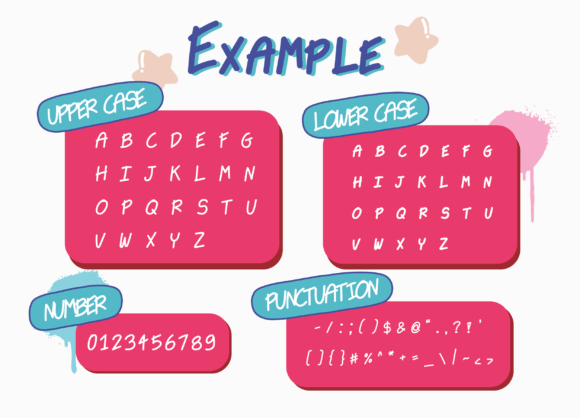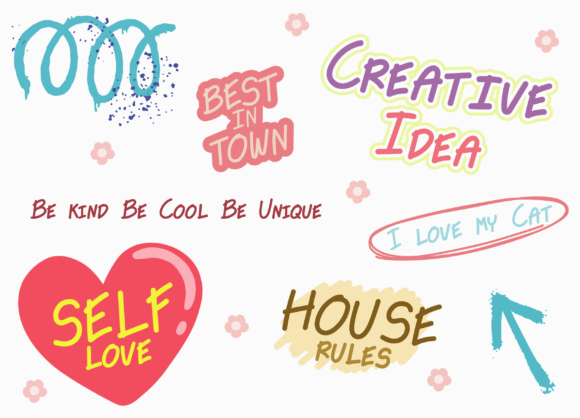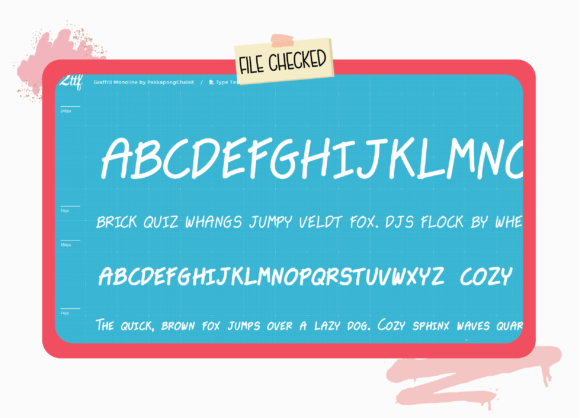
The Urban Canvas: Unlocking the Power of Graffiti Monoline Font
As a designer, you’ve likely experienced that moment when inspiration strikes – the late-night brainstorming session, the sudden flash of creativity, or the spark that sets off a chain reaction of innovative ideas. For me, it’s the vibrant colors and edgy charm of street art that get the creative juices flowing. And that’s exactly what the Graffiti Monoline Font brings to the table – a dynamic visual feast that captures the essence of urban street culture.
This graffiti-inspired font is not just a design element, but a statement piece that adds an edgy yet whimsical touch to your designs. Whether you’re working on a project related to street culture, graffiti art, or anything that needs a burst of urban flair, the Graffiti Monoline Font is the perfect tool to convey rebellious artistry and creativity. With its bold, playful, and colorful design, this font is a valuable asset for designers looking to add a touch of urban sophistication to their work.
Graffiti Monoline Font Key Features
- Font Family: Graffiti Monoline, Graffiti Monoline Bold, Graffiti Monoline Italic, Graffiti Monoline Bold Italic
- Character Set: Latin, Cyrillic, Greek, Extended Latin, Extended Cyrillic, Extended Greek
- Unique Characteristics: Distinctive graffiti-inspired design, clean and modern aesthetic, perfect for street art and urban-themed projects
Graffiti Monoline Font Review
At first glance, Graffiti Monoline Font may remind you of hand-drawn graffiti, but don’t let that fool you – it’s a well-crafted digital font. ✨ The unique monoline style and subtle imperfections give it a charming, street-art vibe. ✨ It’s perfect for projects that need a bit of edge and personality.
One of the font’s strengths is its versatility. ✨ It’s suitable for a wide range of applications, from headlines and titles to body text and even logos. The font’s design ensures that it remains legible, even at smaller sizes.
However, Graffiti Monoline Font has some limitations. ⚠️ The font’s imperfections can sometimes be distracting, especially in long blocks of text. Additionally, the font may not be the best choice for projects that require a more formal or traditional look.
- Unique monoline style
- Subtle imperfections for a hand-drawn feel
- Versatile and suitable for a wide range of applications
- Legible at various sizes
Overall, Graffiti Monoline Font is a solid choice for designers looking to add some personality to their projects. While it may not be perfect for every situation, its unique style and versatility make it a valuable addition to any font collection.
Tips for Getting the Most Out of Graffiti Monoline Font
Experiment with different font sizes and colors to achieve a bold and eye-catching look.
Combine Graffiti Monoline Font with other fonts to create a unique and eclectic style.
Use Graffiti Monoline Font to add a touch of urban flair to your designs.
Graffiti Monoline Font is perfect for:
Urban-themed designs and branding.
Street art and graffiti-inspired graphics.
Edgy and avant-garde designs.
Alternative Fonts to Graffiti Monoline
Great Vibes is a beautiful, modern script font that is perfect for creative and artistic projects. It features a flowing, handwritten style with a relaxed feel. Use it for headings, titles, and quotes to add a touch of elegance to your design. Compared to Graffiti Monoline, Great Vibes is more polished and refined, making it suitable for a wider range of applications.